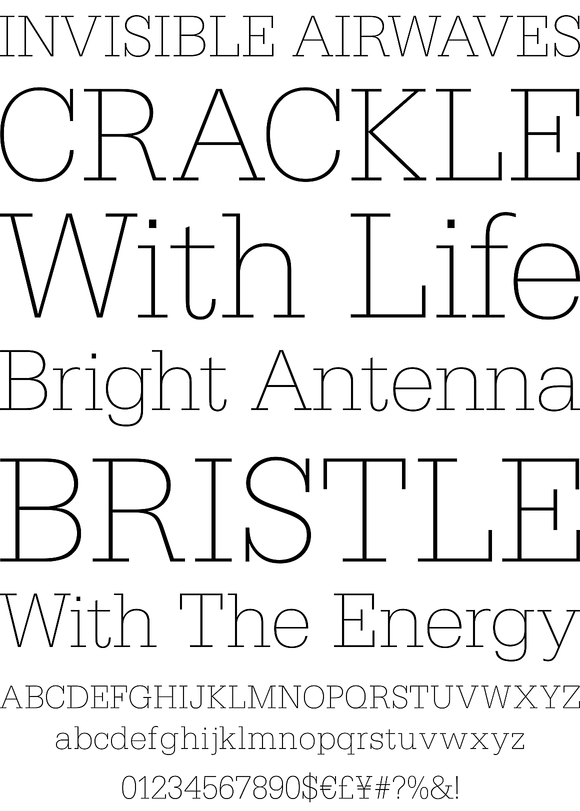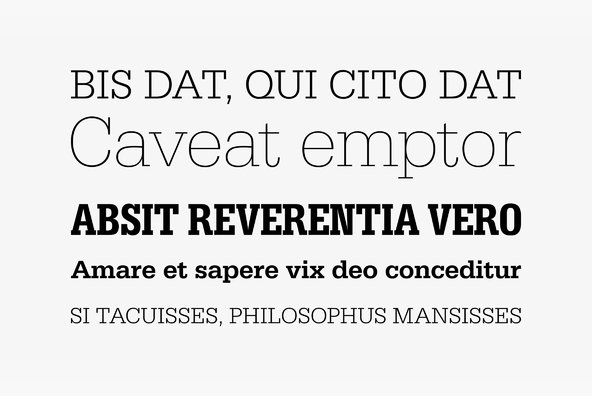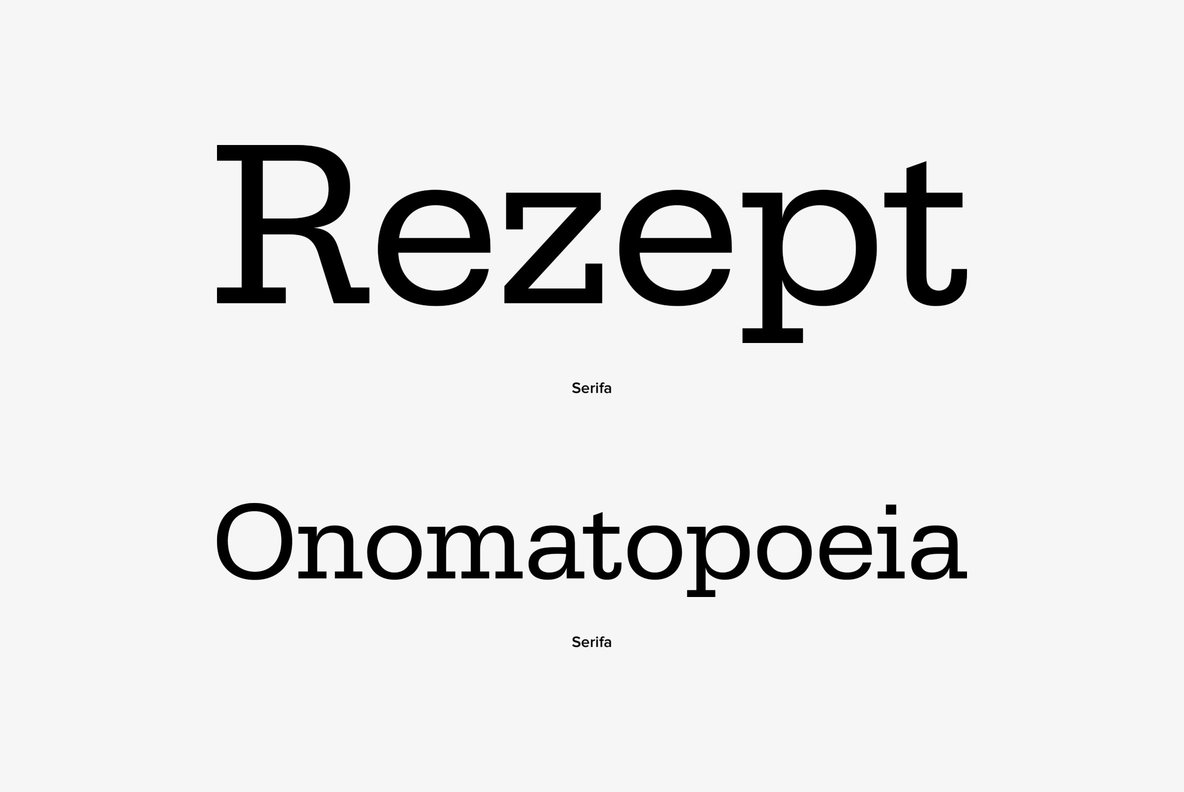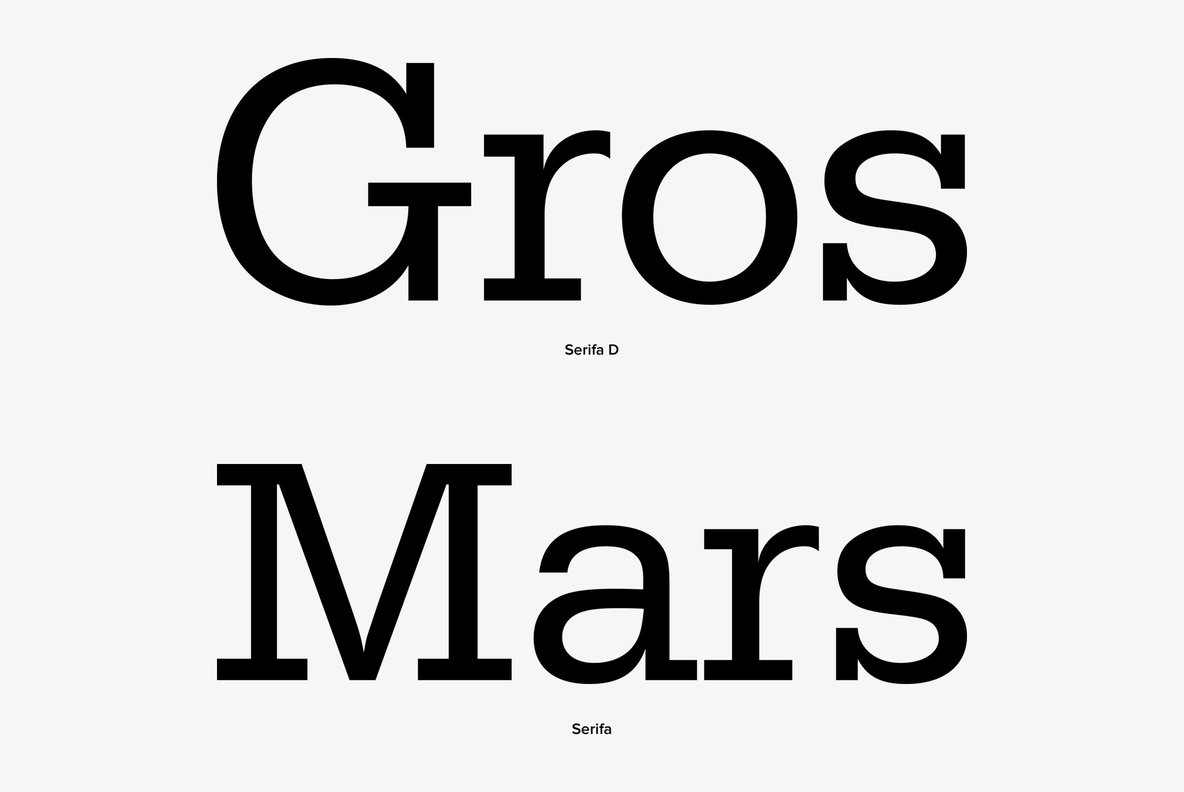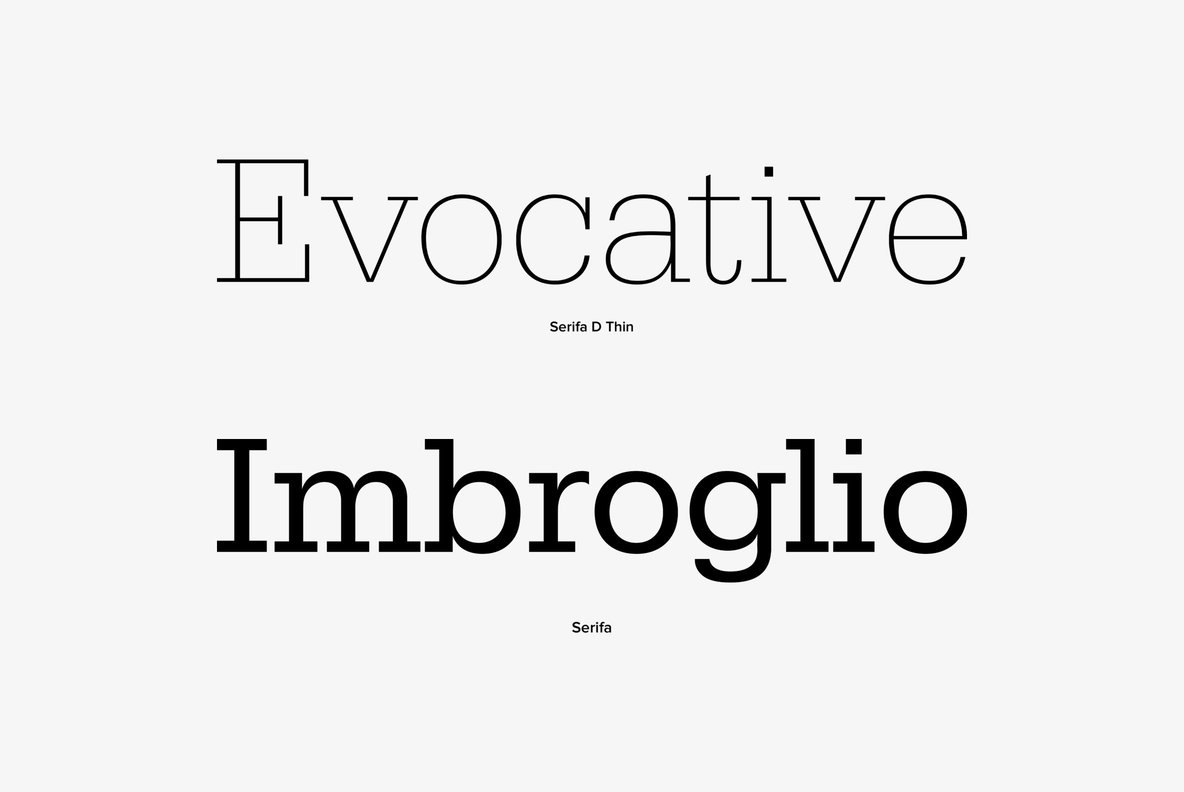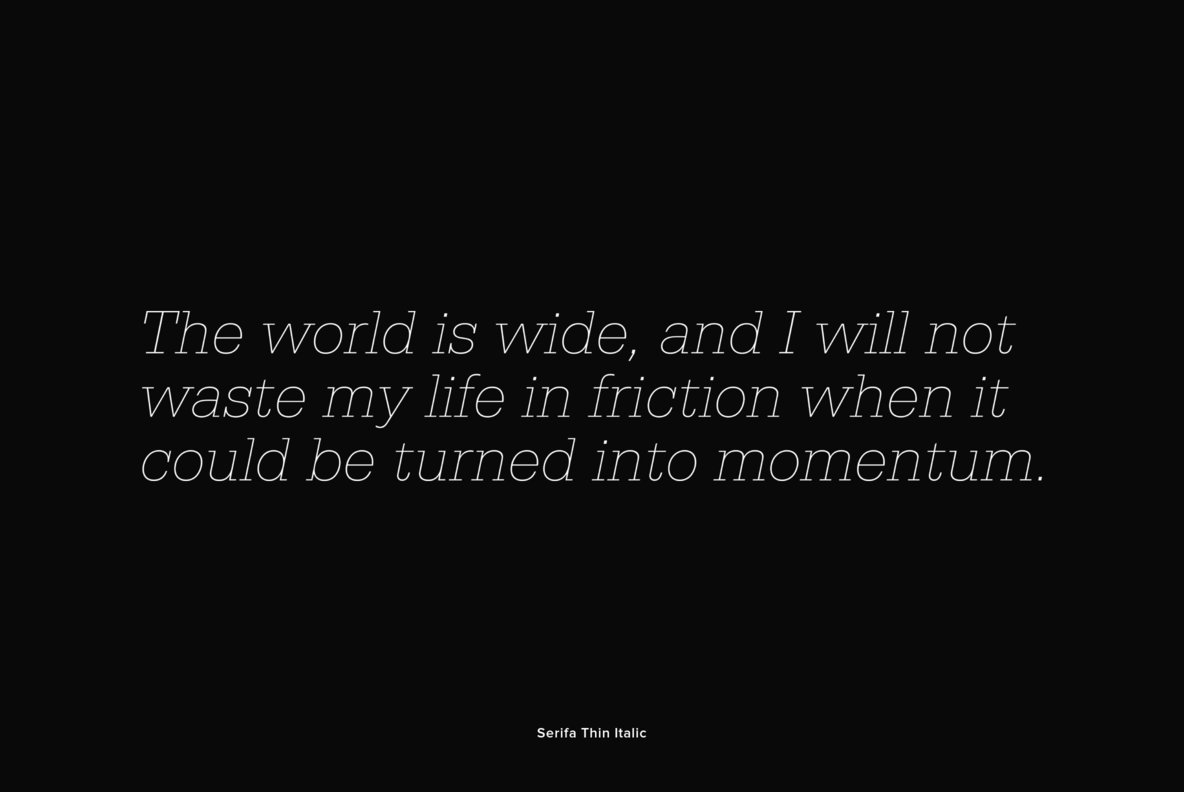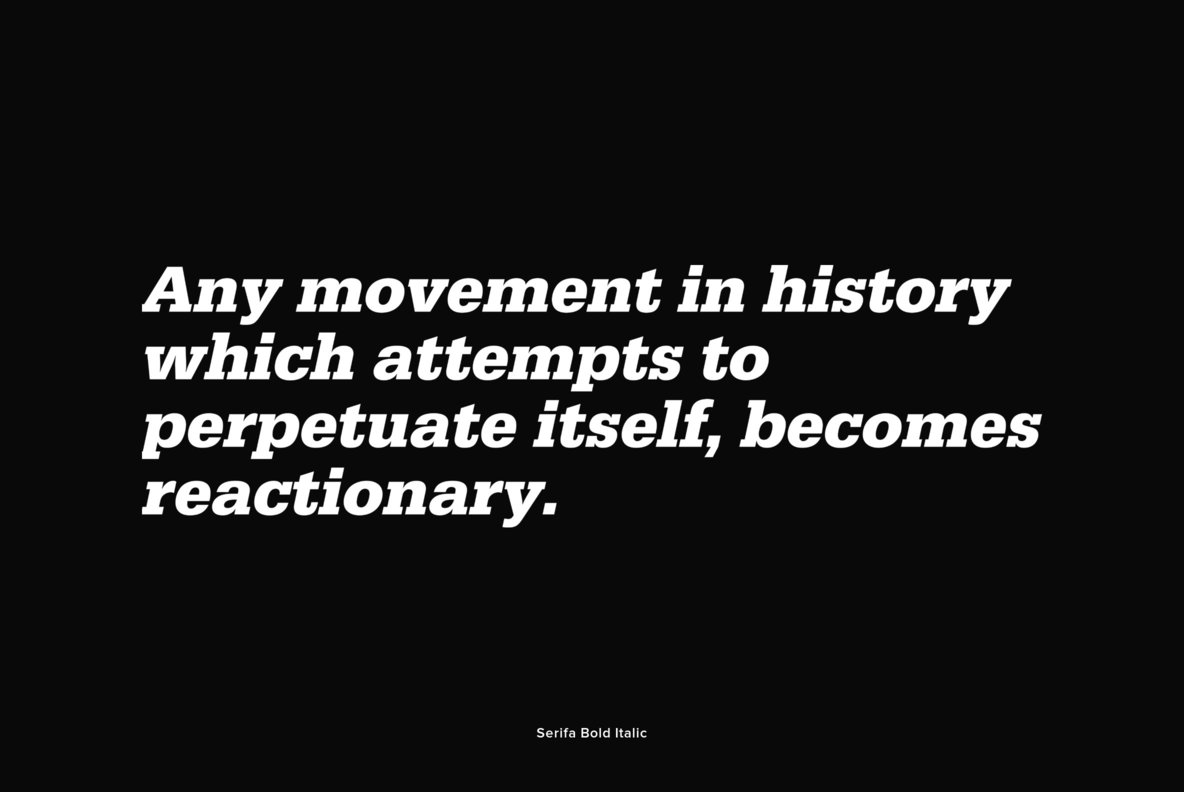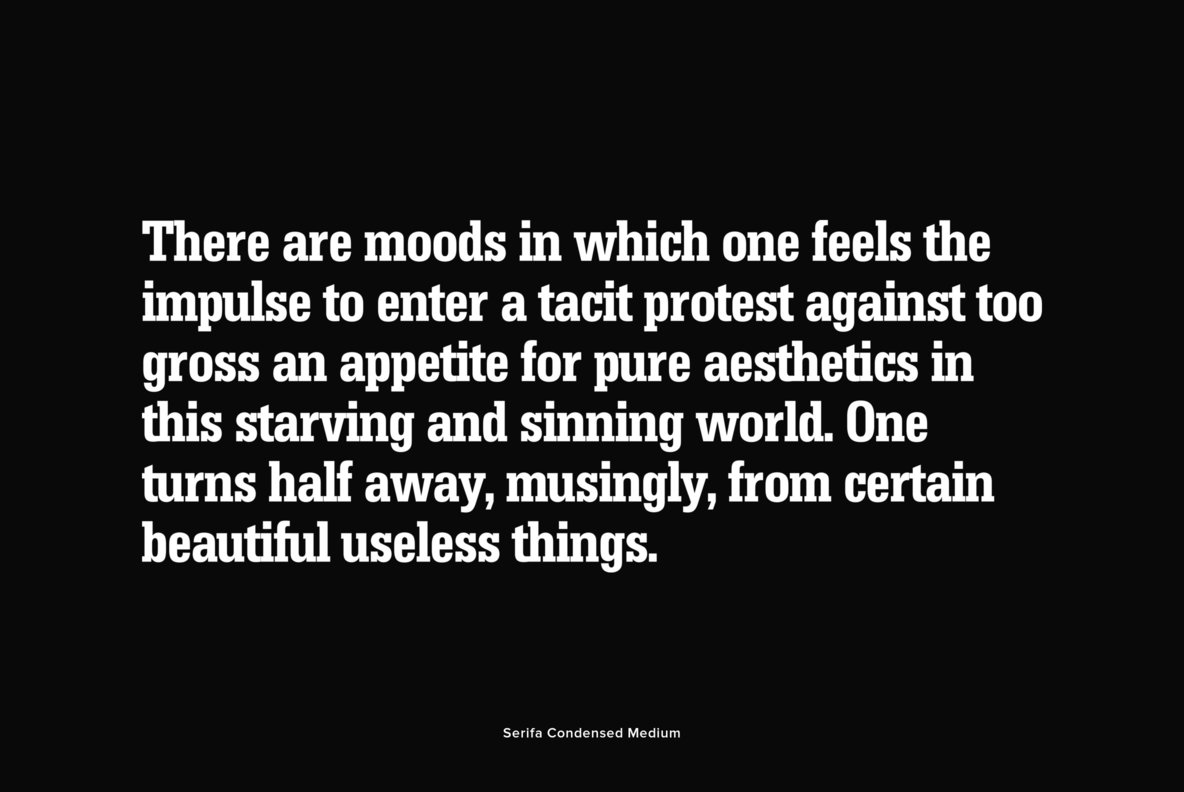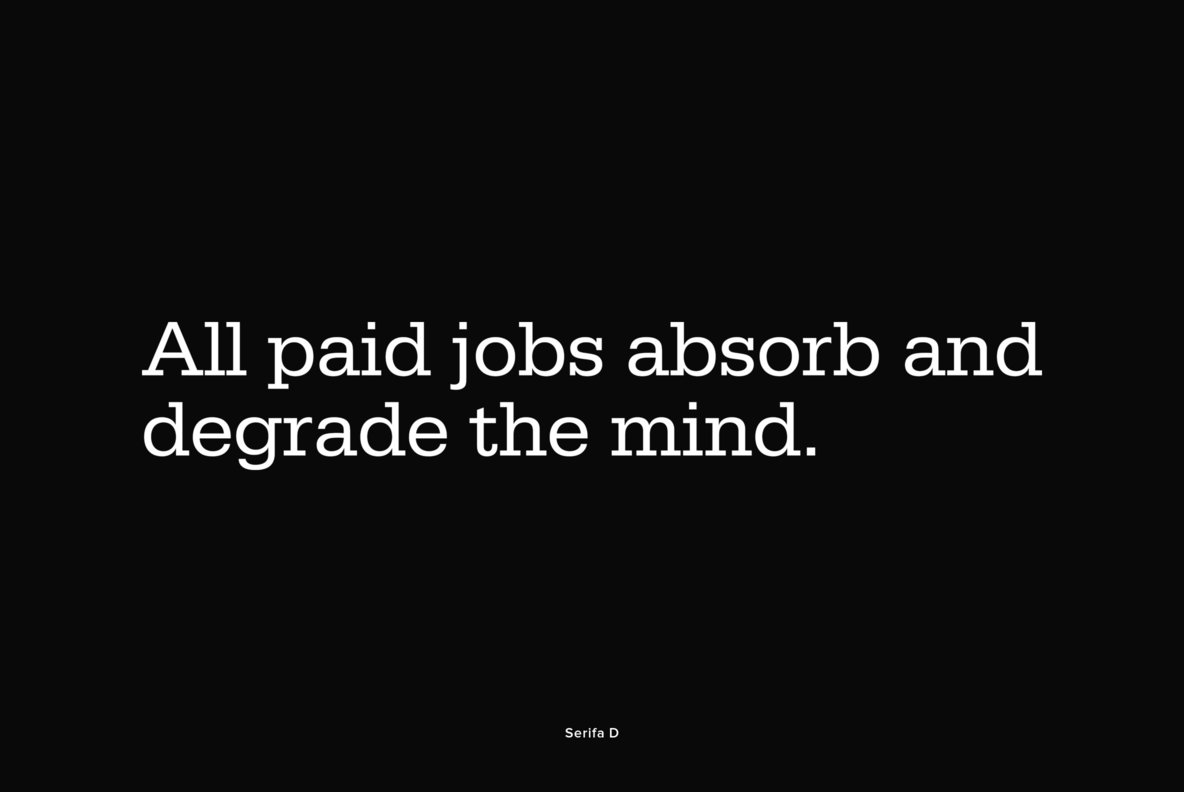
Serifa is a slab-serif design originally designed by Adrian Frutiger in 1967. In this modern revival, URW brings the best version available by offering an extensive 16 weight family, including one amazing stencil option.